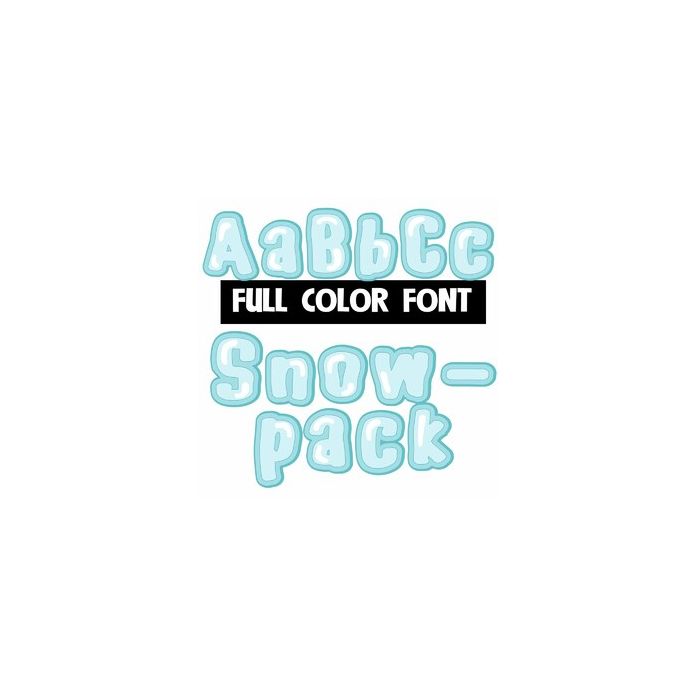
This full-color font features snow-packed lettering. This font works best for titles, displays, posters and more. Please note color fonts will show as black in non compatible programs. This font type is compatible with Silhouette Studio